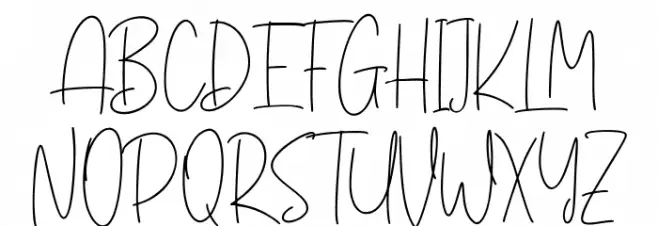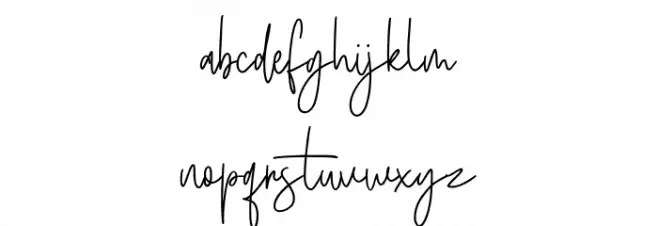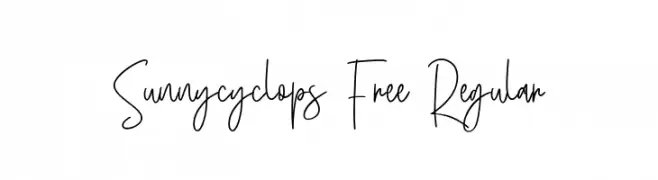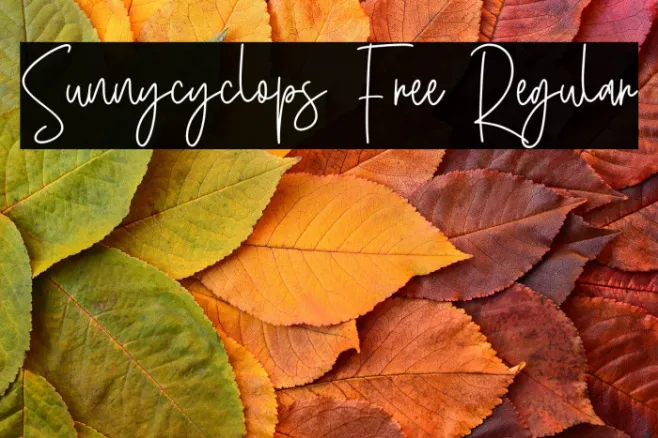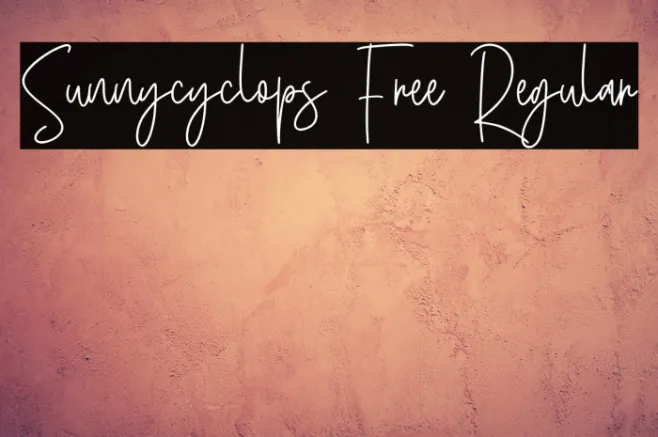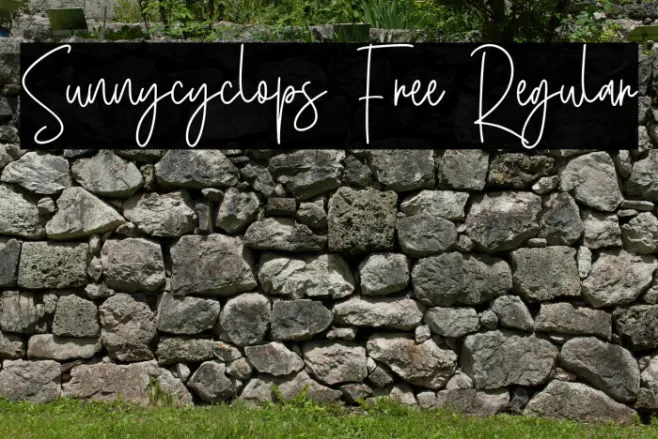
Sunnycyclops Free Regular
A playful, handwritten font with tall, narrow letters and a casual, flowing style.
Playful handwritten font with tall, narrow letters.
- Proposed Projects: Greeting cards, invitations, casual branding.
- Width: Condensed
- Overall Style: Casual, Playful
- Use Case: Logos, Headlines, Informal text